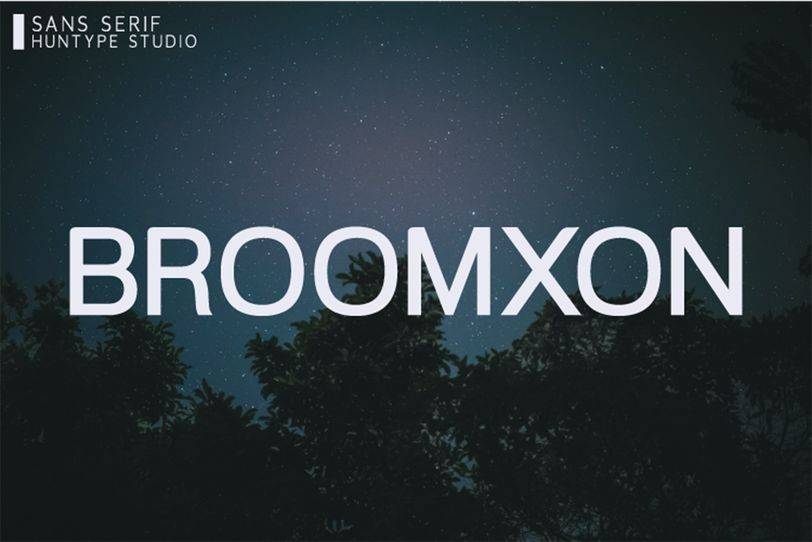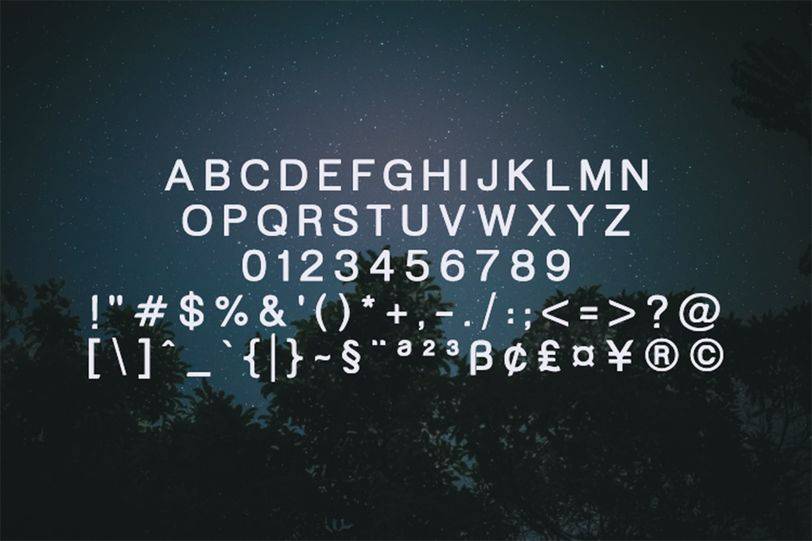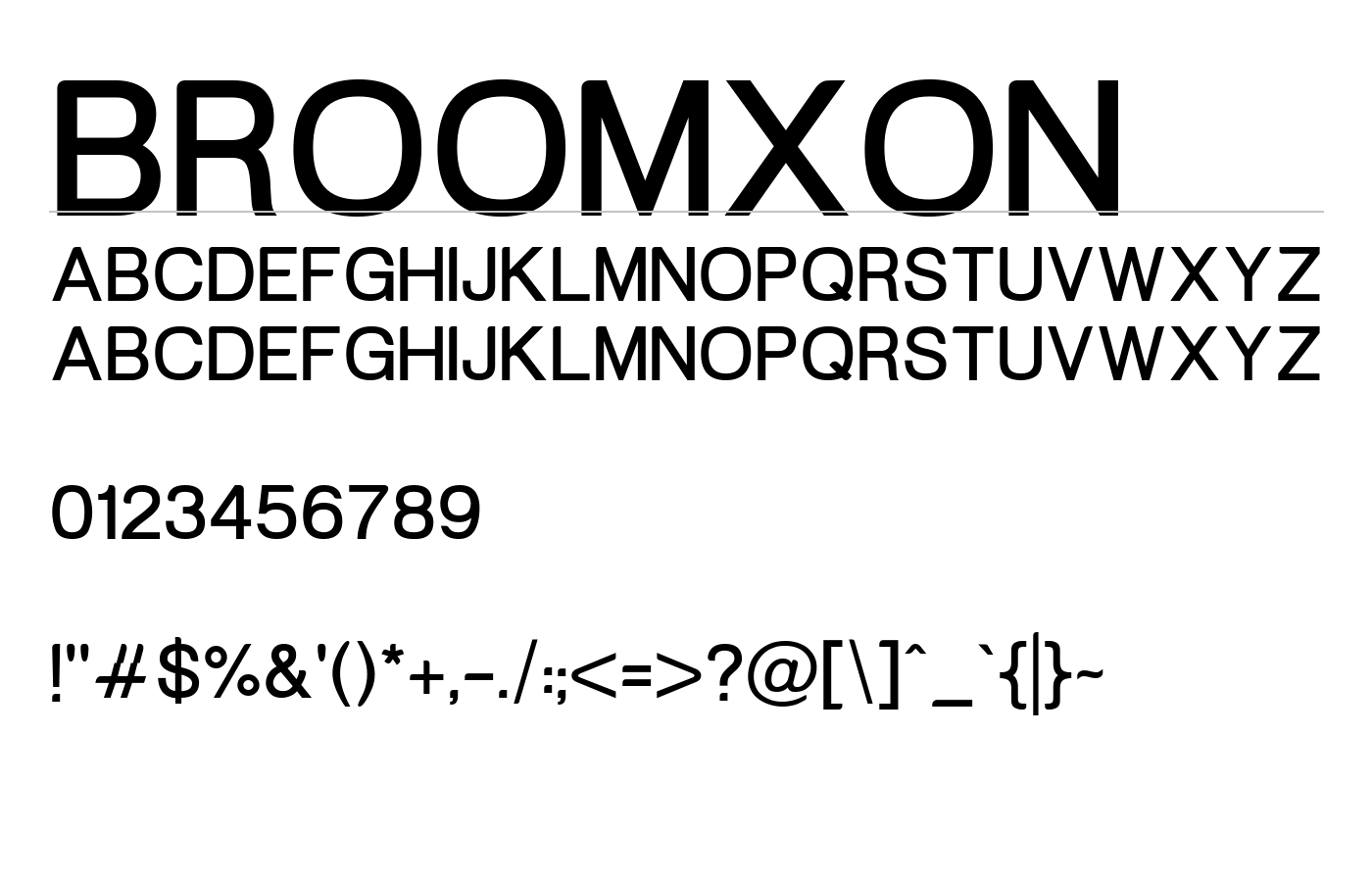
Broomxon is a clean, modern sans serif font with a regular weight and normal width, offering excellent readability and a balanced x-height. Its straightforward geometric letterforms and consistent stroke weight make it ideal for clear, professional communication in logos, websites, and editorial design. This font conveys a sense of simplicity and efficiency, working well in contexts where clarity and contemporary style are key.
Broomxon Font
About Broomxon Font